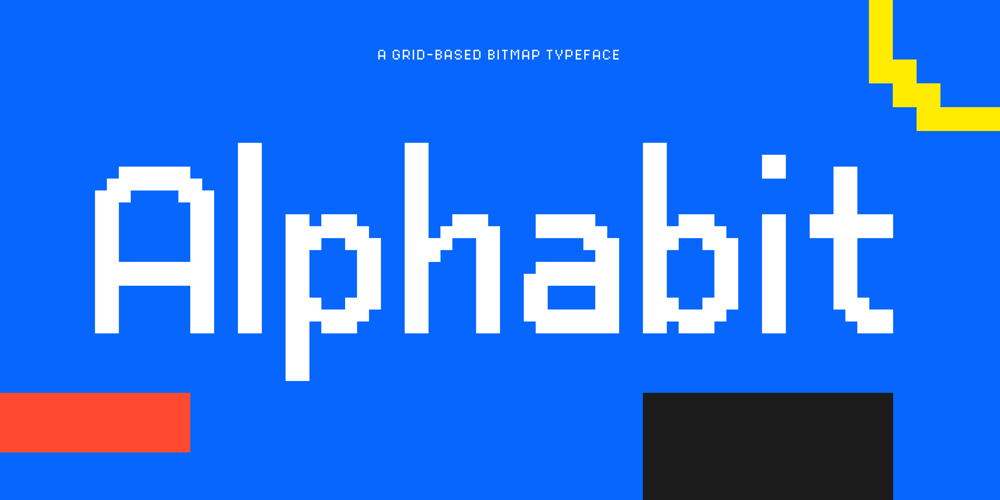
Alphabit Font Family was designed by Ben Buysse and published by Ben Buysse. Alphabit contains 2 styles and family package options. Alphabit is a grid-based bitmap typeface that celebrates the blocky and jagged letterforms of early digital typography. Designed with technology as the central theme, it simultaneously references a bygone era of computing and yet feels relevant for modern applications.